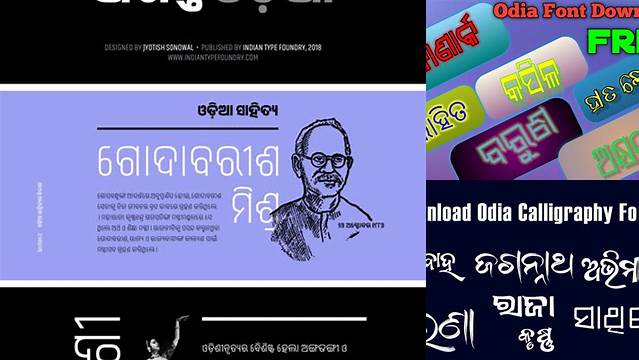
Akhand Odia Font: Free Download & Creative Use Guide
Hey everyone! If you're diving into the world of Odia content creation, whether it's for blogs, graphic design, or even just personal projects, having the right tools is super important. And when it comes to typography, the Akhand Odia font is a real game-changer. Itâs known for its clean lines and modern aesthetic, making your text pop. Lucky for us, guys, you can often find the Akhand Odia font free download, which means you donât have to break the bank to make your Odia projects look professional and stylish.
This article is all about helping you find and use the Akhand Odia font, making sure you get the best out of it. Weâll explore why this font is so popular, where you can snag a free download, and some cool tips on how to use it effectively. So, letâs get started on making your Odia text look absolutely amazing!
Understanding the Akhand Odia Font
The Akhand Odia font is a gem in the world of Odia typography, offering a fresh, contemporary look that stands out from more traditional scripts. When we talk about Akhand Odia font, weâre referring to a typeface designed with clarity and modern aesthetics in mind. Itâs particularly popular among designers and content creators who want their Odia text to be easily readable and visually appealing across various platforms. Unlike some older fonts that might feel a bit dated, Akhand Odia brings a sense of sophistication and a clean finish to everything itâs used in. This makes it perfect for everything from website headings and marketing materials to social media posts and personal invitations. The Akhand Odia font free download availability means that accessibility is a huge plus, allowing a wider audience to experiment with and benefit from its distinctive style without any financial barriers. This font really captures the essence of modern Odia script while maintaining readability, which is crucial for engaging with your audience. Its versatility is another key factor; it works beautifully in both large display sizes for headlines and smaller, more dense text for body paragraphs. The designers behind Akhand Odia clearly put a lot of thought into its legibility, ensuring that each character is well-defined and harmonizes with the others. This attention to detail results in a font that is not only aesthetically pleasing but also highly functional. So, whether you're crafting a blog post, designing a poster, or creating a presentation, the Akhand Odia font provides a solid foundation for clear and impactful communication in the Odia language. Getting your hands on it through a free download is just the cherry on top, making it an essential addition to any typographer's toolkit. Itâs a font that truly bridges the gap between traditional script and contemporary design, offering a unique visual language for the digital age.
Why Akhand Odia Font is a Top Choice
So, why is the Akhand Odia font becoming such a go-to for so many people? Well, guys, it really boils down to its fantastic blend of modern style and excellent readability. When youâre working with text, especially in a language like Odia where script nuances are important, you need a font thatâs both beautiful and clear. Akhand Odia nails this. Its clean, crisp lines make it super easy to read, whether youâre looking at it on a small phone screen or a large billboard. Plus, it just looks good. It gives your Odia content a professional, polished feel without being overly formal. This makes it perfect for a wide range of applications â think wedding invitations, business flyers, website headers, or even just adding a stylish touch to your social media captions. The Akhand Odia font free download option is also a massive bonus. It means that everyone, from students to small business owners, can access this high-quality typeface without any cost. This democratizes good design, allowing more people to create visually appealing Odia content. Itâs a font that truly elevates your work, giving it a contemporary edge that can really capture attention. Compared to some older, more ornate Odia fonts, Akhand Odia offers a streamlined aesthetic that often resonates better with a modern audience. Its versatility means it can be used for both display text and body copy, making it a truly all-around performer. You'll find that projects using this font often feel more cohesive and professional. Itâs the kind of font that makes you say, âWow, this looks great!â and thatâs exactly what you want when youâre trying to make an impact with your Odia language content. The free download aspect just makes it even more attractive, ensuring that quality typography is within everyoneâs reach.
Exploring Free Akhand Odia Font Downloads
Best Practices for Using Akhand Odia Font
Once youâve got that fantastic Akhand Odia font downloaded and installed, the real fun begins: using it! But to really make your Odia content shine, there are a few best practices you should keep in mind, guys. First off, consistency is key. Decide where you want to use Akhand Odia â maybe for headings, specific call-to-action buttons, or even short blocks of text â and stick with it throughout your project or website. This creates a cohesive and professional look. Donât just scatter it randomly; give it a purpose. Secondly, consider the context. While Akhand Odia is super versatile, think about the overall vibe of your project. Its modern feel works great for contemporary designs, but if youâre going for a very traditional or rustic look, you might want to pair it with a different font. However, for most modern applications, itâs a solid choice. A great tip is to pair it with another font. Akhand Odia looks amazing on its own, but combining it with a complementary font for body text can create a beautiful typographic hierarchy. Look for a simpler, perhaps sans-serif font in English, or a more traditional Odia font if you need a contrast. This makes your design more dynamic and easier to read. Pay attention to spacing (kerning and leading). Even the best fonts can look a bit off if the spacing between letters (kerning) or lines (leading) isnât right. Most design software allows you to adjust this. Play around with it until the text feels comfortable and balanced. For headings or display text, making the Akhand Odia font slightly larger can really emphasize its stylish characteristics. Remember that legibility is paramount. While Akhand Odia is very readable, avoid using it in extremely small sizes for long passages of text if it strains the eyes. Always test your design on different screens and sizes. Lastly, leverage the free download aspect by experimenting! Since itâs accessible, try it out in different ways. Use it for impact in headlines, for elegant quotes, or even as part of a graphic design element. The goal is to use the Akhand Odia font purposefully to enhance your Odia content, making it not just readable, but also visually engaging and memorable.
Tips for Pairing Akhand Odia Font with Other Fonts
Okay, so youâve mastered the Akhand Odia font, and now youâre thinking, âHow can I make this even cooler by pairing it with other typefaces?â Great question, guys! Pairing fonts is like creating a harmonious duet for your words. The Akhand Odia font, with its modern and clean vibe, offers a lot of flexibility. One of the simplest and most effective strategies is to pair it with a contrasting font. If Akhand Odia is clean and somewhat sleek, try a font that has a bit more personality or a different weight. For example, if youâre using Akhand Odia for your main Odia headings, you could use a simpler, perhaps more traditional Odia font or even a clean English sans-serif font for your body text. The key is to create a clear visual difference so that the reader can easily distinguish between different types of information. Another approach is *font